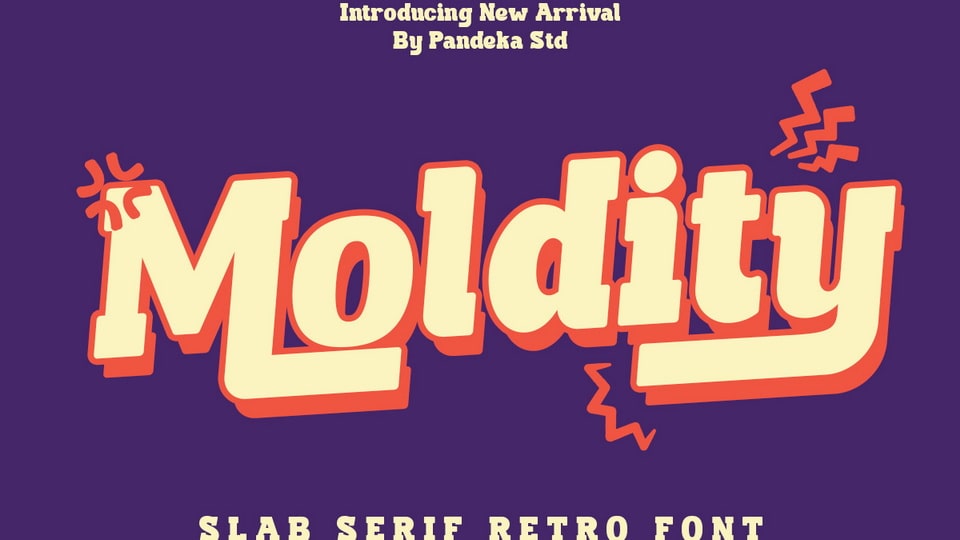
Download Moldity font, a bold retro slab serif typeface that captures the essence of vintage design. Inspired by the timeless beauty of retro posters